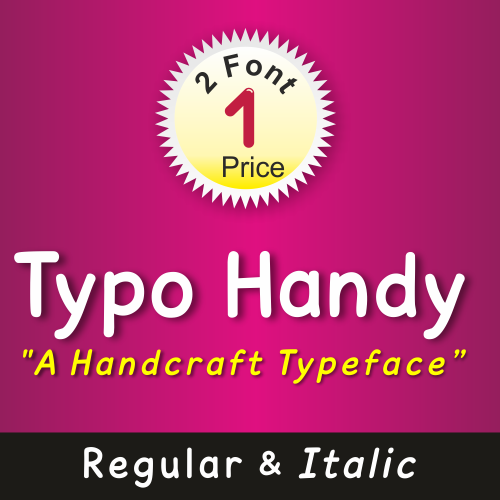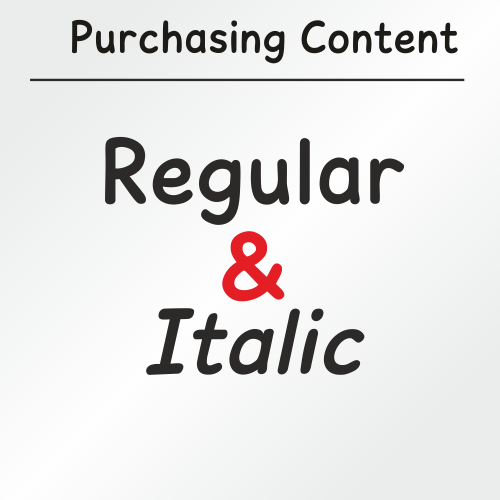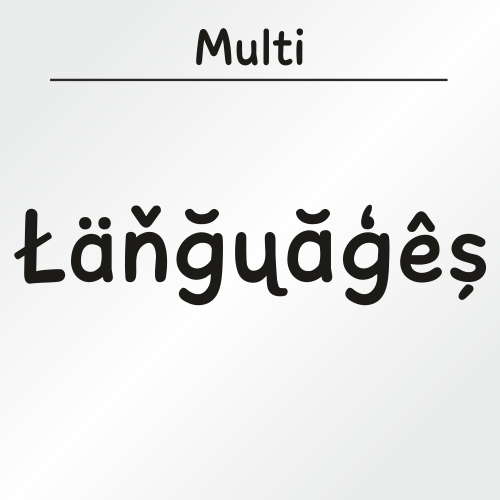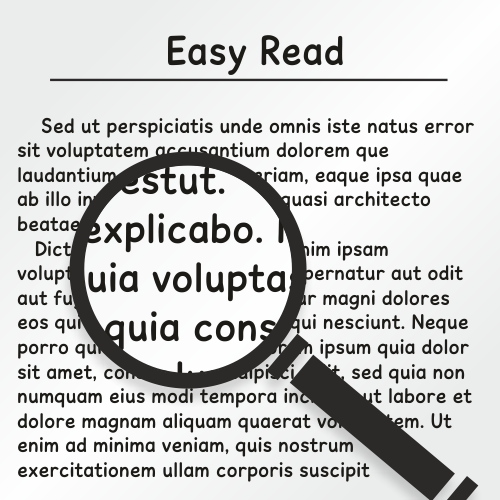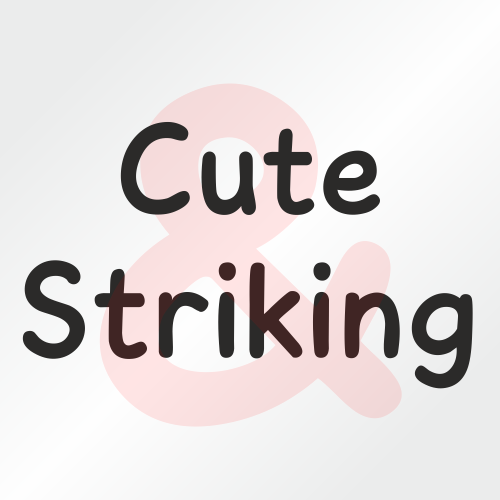
Typo Handy - A Playful Comic-Inspired Typeface
Designed by Mehmet Abacı, Typo Handy is a fun, handwritten typeface that brings a warm and approachable personality to your designs. Inspired by the familiar charm of comic book lettering, this font features smooth, rounded geometry and an easy-going style that feels both casual and friendly.
The family includes Regular and Italic versions, giving you flexibility for titles, captions, and creative layouts. Its clean yet playful curves make it perfect for children’s books, posters, comics, packaging, greeting cards, and digital content where a lighthearted and human touch is needed.
With extensive language support and carefully crafted glyphs, Typo Handy is more than just a comic-style typeface
– it’s a versatile design tool that adds joy and approachability to any project.
- If you’re looking for a typeface that combines the accessibility of Comic Sans-style lettering with a more refined and modern design, Typo Handy is the perfect choice.